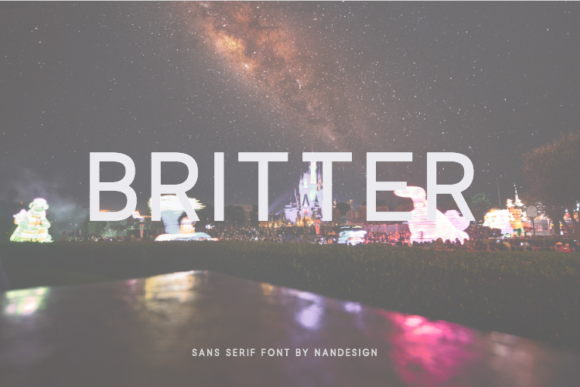
Welcome to the remarkable world of Britter Font, a creation of Nan Design, a sans serif font crafted with simplicity and elegance in every stroke. Britter is more than just a font; it's a versatile tool that unlocks a world of creative possibilities. Prepare to be amazed as Britter transforms your designs into captivating masterpieces, leaving an everlasting impression on your audience.
Express Your Inner Artist:
With Britter Font, unleash your inner artist and let your creativity soar. Whether you're a seasoned designer or just starting, Britter is your perfect companion, ready to elevate your projects to new heights. Its clean lines and modern aesthetic blend seamlessly with any design style, adding a touch of sophistication and charm. Discover the joy of creating designs that resonate with your audience, leaving them captivated by your artistic vision.
Create Unforgettable Framed Quotes:
With Britter Font, turn ordinary quotes into extraordinary works of art. Its sharp and legible letterforms make it the ideal choice for creating framed quotes that demand attention. Imagine your favorite quotes, rendered in Britter's elegant style, adorning your walls or gracing your social media feeds. Let Britter be your canvas, and let your words paint a picture that speaks volumes.
Make a Statement with Logos and Branding:
Britter Font is not just for quotes; it's a powerful tool for crafting logos and branding that leaves a lasting impact. Its versatility allows it to adapt to any industry or niche, effortlessly conveying your brand's unique identity. Britter's clean lines and modern aesthetic create logos that stand out, capturing the essence of your brand and making a statement that resonates with your audience.
Experience the Magic of Simplicity:
In a world of cluttered designs, Britter Font offers a refreshing return to simplicity. Its unpretentious style exudes an understated elegance that complements any project. Let Britter's simplicity shine through your designs, allowing your content to take center stage. Discover the beauty of minimalism and experience the power of Britter Font to create designs that captivate and inspire.
A Font for All Occasions:
With Britter Font, the possibilities are endless. It's a font that seamlessly adapts to any project, from eye-catching social media posts to stunning website designs. Add a touch of sophistication to your presentations, or create invitations that leave a lasting impression. Britter's versatility makes it the perfect choice for any creative endeavor, transforming your ideas into captivating realities.
Join the Creative Revolution:
Don't settle for ordinary fonts; embrace the extraordinary with Britter Font. As a creation of Nan Design, Britter is a testament to innovation and creativity. Experience the joy of using a font that inspires your imagination and empowers you to create designs that leave a lasting impact. Join the creative revolution and unlock the full potential of your artistic vision with Britter Font.